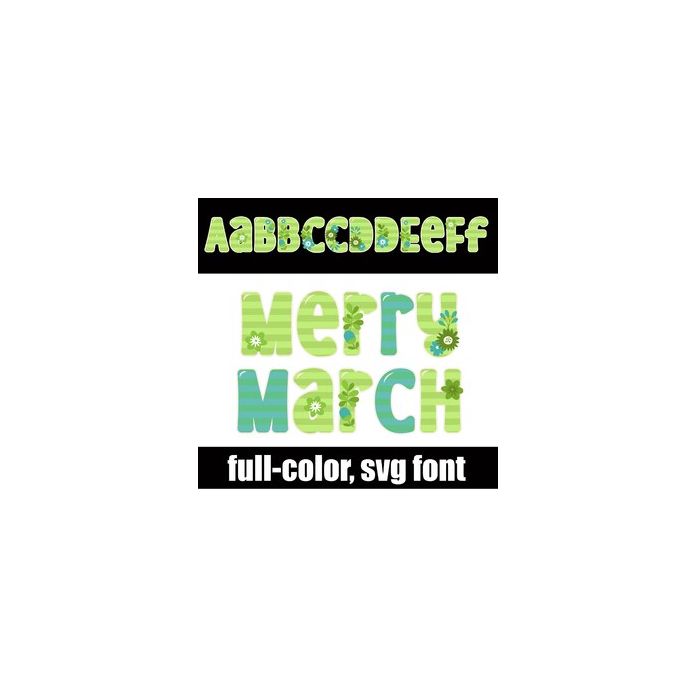
This full-color font features green stripes and florals. There is an alt upper and lowercase with additional colors that you can access through Silhouette's glyph map.